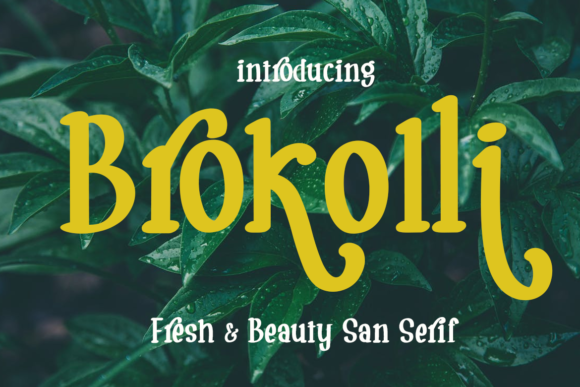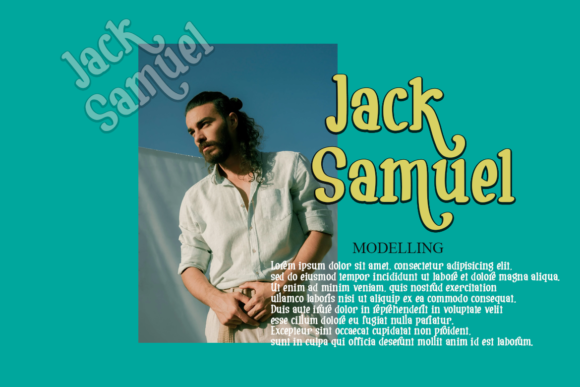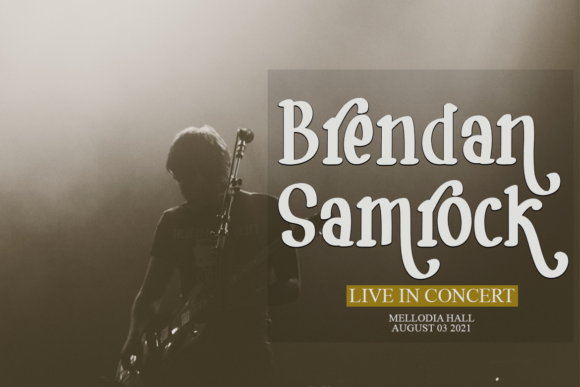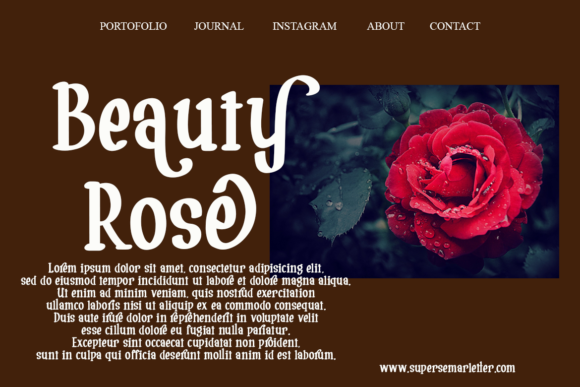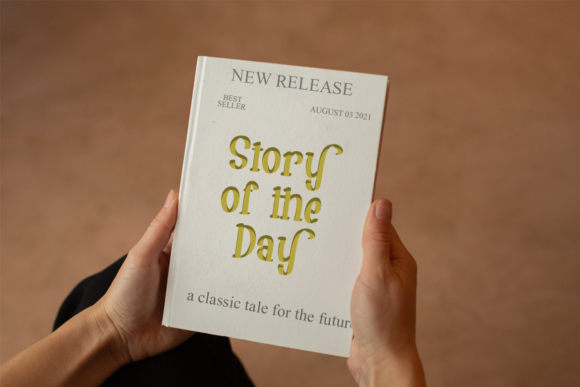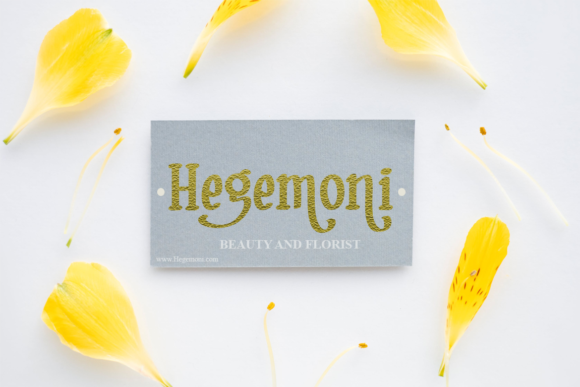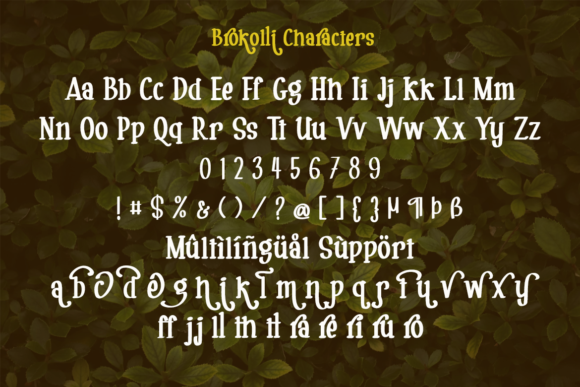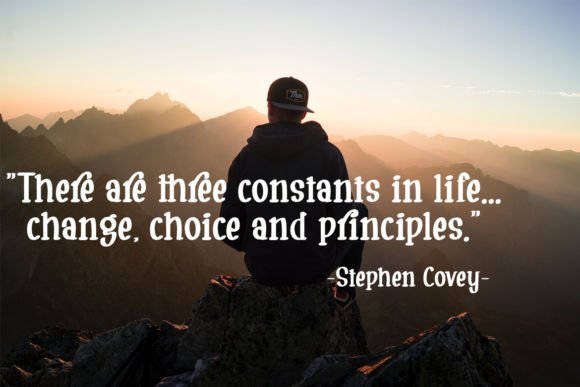
Brokolli
Brokolli: A Vintage-Styled Slab Serif Font
Brokolli is a distinctive slab serif font that combines vintage styling with modern functionality. This versatile typeface is PUA encoded, allowing easy access to all glyphs and swashes, making it a powerful tool for designers looking to create impactful typography with a nostalgic touch.
Key Features of Brokolli
• Vintage Style: Evokes a sense of nostalgia with its retro-inspired design.
• Slab Serif Structure: Features the characteristic thick, rectangular serifs typical of slab serif fonts.
• PUA Encoded: Allows easy access to all glyphs and swashes for enhanced design flexibility.
• Versatile Application: Suitable for a wide range of projects, from branding to editorial designs.
• Unique Character: Offers a distinctive look that stands out in various design contexts.
Ideal Uses for Brokolli
Brokolli’s unique characteristics make it particularly well-suited for:
• Vintage-inspired branding and logo design
• Retro-themed poster and advertisement layouts
• Book covers and editorial designs with a classic touch
• Website headers and digital content aiming for a nostalgic look
• Packaging design for products with a vintage aesthetic
When incorporating Brokolli into your designs, consider the following tips:
• Utilize the PUA encoding to access all glyphs and swashes for creative typography
• Use for headlines or short blocks of text to maximize its vintage impact
• Experiment with different sizes to highlight the font’s unique details
Brokolli is an excellent choice for designers looking to add a vintage-styled slab serif font to their typographic toolkit. Its PUA encoding and distinctive style make it stand out in the world of typography. Whether you’re working on logo designs for retro-inspired brands, creating layouts for nostalgic publications, or developing content that requires a touch of vintage charm, Brokolli offers the perfect blend of old-school aesthetics and modern functionality.
Add Brokolli confidently to your favorite creations and prepare to be amazed by the outcomes it generates. From eye-catching headlines to engaging branding elements, this font provides the tools to create impactful and memorable typography that resonates with audiences seeking a vintage aesthetic. It’s versatile enough to be used in various contexts, from vintage-inspired designs to more playful layouts that need a touch of retro sophistication.
Whether you’re creating a magical and mysterious atmosphere with a vintage twist or aiming for a more thoughtful and introspective mood in your designs, Brokolli can adapt to your needs. Its flexibility allows it to work well in both rustic, vintage-style projects and contemporary designs that require a nostalgic touch. For those looking to add a touch of the past with a modern feel, this font can even complement vintage-inspired creations with a unique, timeless twist.